Meet Azza
We first talked with Pooja Saxena, Joancarles Casasín, and Roxane Gataud. Now it is Azza’s turn. Pour yourself a Turkish coffee — it’s time to meet Azza, our type designer and engineer.
Azza Alameddine has been with TypeTogether since July 2016. Originally from Tripoli (Lebanon) and now based in Barcelona (Spain), she splits her time between type and branding design, hoping to bring better typography to the Arab world. Azza is TypeTogether’s quality assurance enforcer and we are fortunate she is our Arabic type design specialist. She likes to collect book covers — both the beautiful and the ugly — and take pictures of bilingual shop signs from around the world. Her favourite foods are Turkish coffee and green plums with salt, and she welcomes discussion about Arabic type design and best practices on Twitter.
1 · Where is your office located?
In Barcelona, Spain.
2 · In what countries or cities have you lived?
Lebanon, France, Netherlands, England, and Spain.
3 · What kind of music do you listen to, if you do, when working?
I am a big fan of Spotify’s weekly discover which creates a customised playlist according to what you usually listen to. It goes out every Monday and when I’m lazy I listen to it the whole week. Otherwise, I love indie music and I’m a big fan of cover songs.
4 · Can you name three fonts you love (designed by others)?
Meridien by Frutiger, Lyon’s italics by Kai Bernau (Commercial Type), and Domaine (Klim).
5 · Who is your everyday hero?
People who don’t tell you the story of their life on social media. It seems like an accomplishment these days.
6 · What are your love/hate glyphs when designing?
There are so many that I hate. In Arabic I struggle with ‘meem’, ‘hah’, and initial ‘heh’ and all the numerals (okay, all except for zero, which is just a dot). In Latin, the hateful classics: the ‘s’, ‘g’, ‘w’, and all accents. On the other hand, I love to draw ‘seen’, ‘a’, and comma. I bet any non-type-designer reading this must be thinking we are crazy people.
7 · What is your hobby when not designing fonts?
I like to play squash.
8 · You have one opportunity to do something different in your life. What do you choose?
I would go into shoe design or movie score composition.
9 · What is your favourite word?
It’s yacht because no one knows how to pronounce it in any language.
10 · What is the most amazing script you have worked with and why?
I haven’t worked with it yet but I find Sinhalese fascinating because of the complexity of shapes in each glyph.
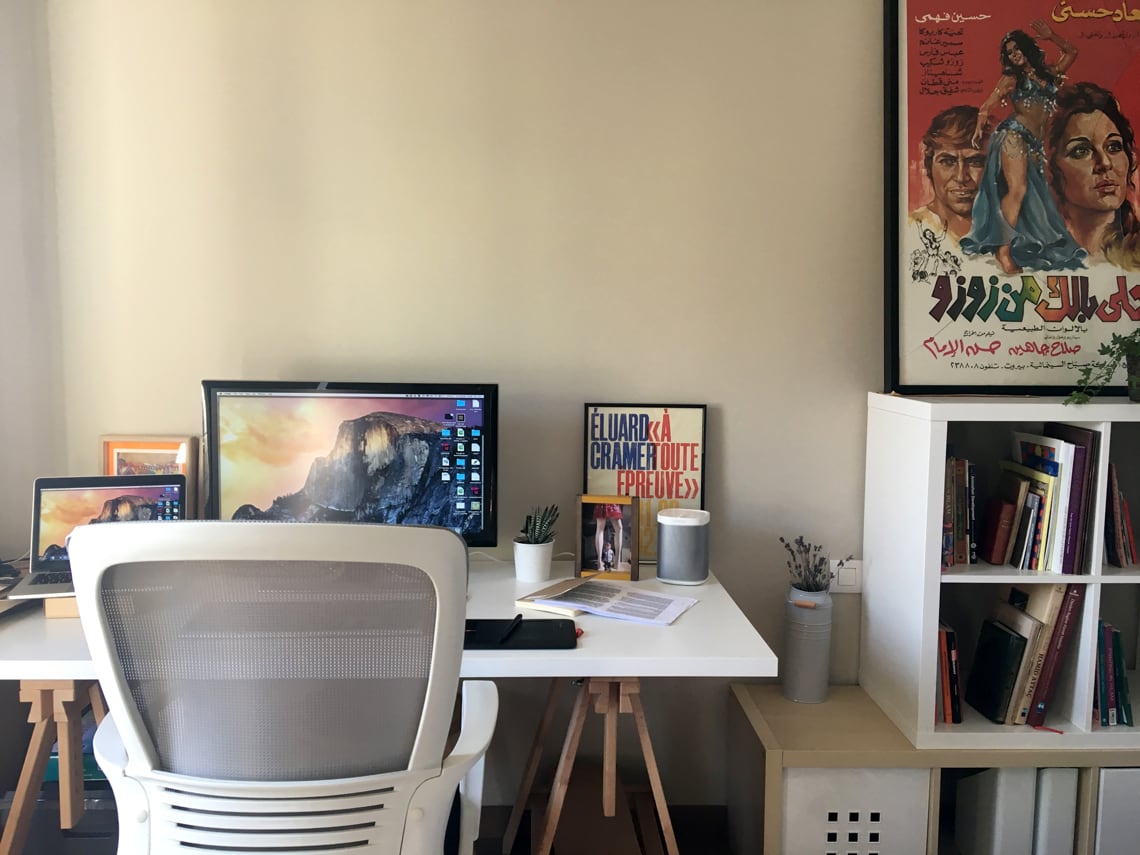
Azza’s working space in Barcelona.
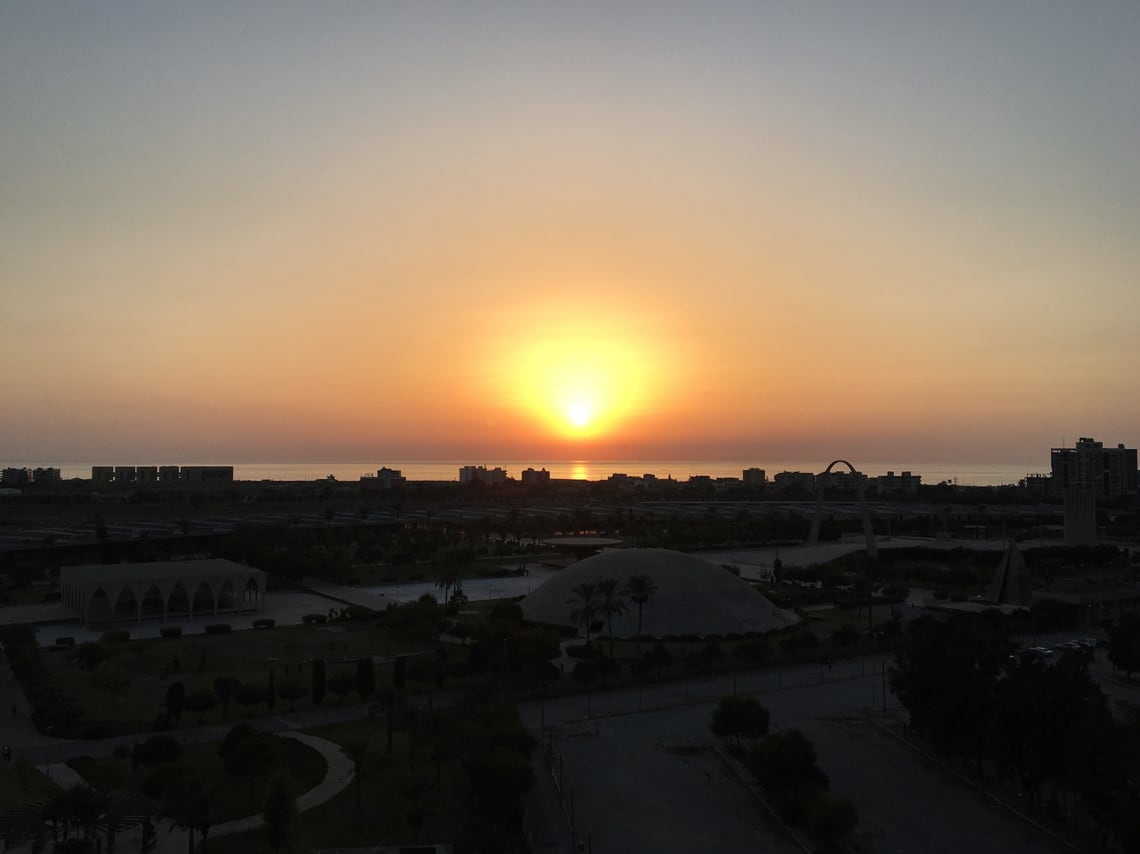
“This is view of Tripoli’s unfinished international fair from my grandmother’s balcony. An abandoned architectural gem in my hometown, it was designed by Oscar Niemeyer. I love this view and this space so much, I never get tired of it.”
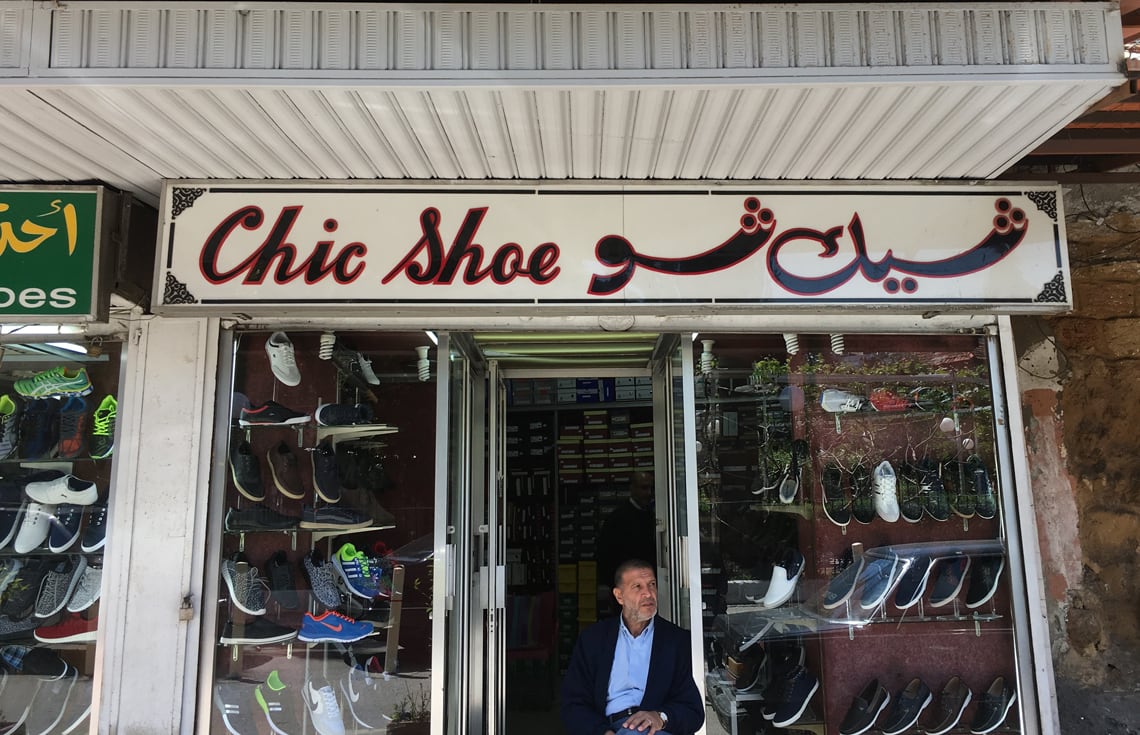
“Arabic lettering on the streets inspire me, especially store signs that are still drawn manually.”